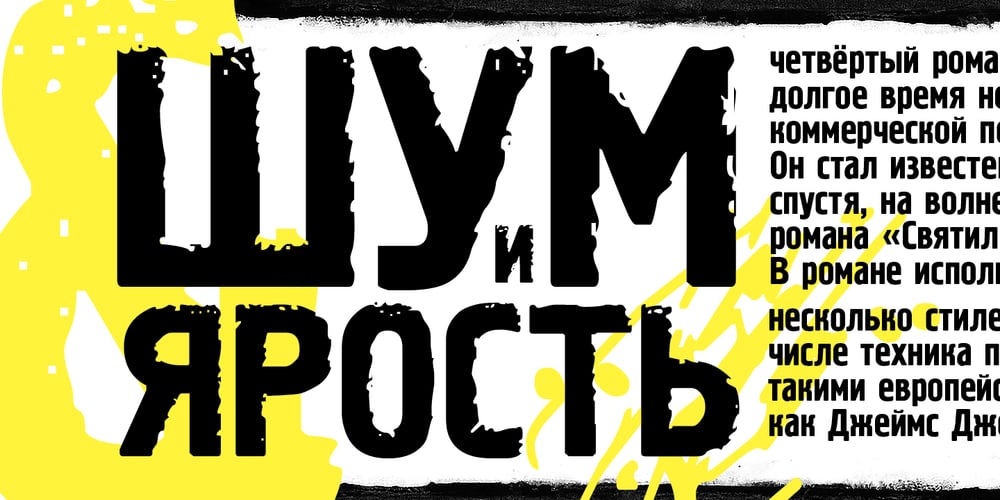
Pollock
Pollock font
Pollock Font Family was designed by Alexander Tarbeev and published by ParaType. Pollock contains 5 styles and family package options. An experimental type family designed at ParaType in 1995 by Alexander Tarbeev. Based on PT Hermes, 1993, by Tagir Safayev. Inspired by the art of Jackson Pollock. For use in advertising and display typography.